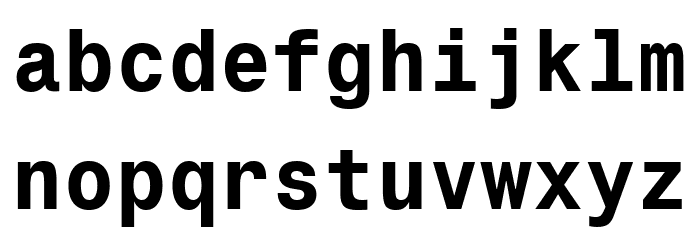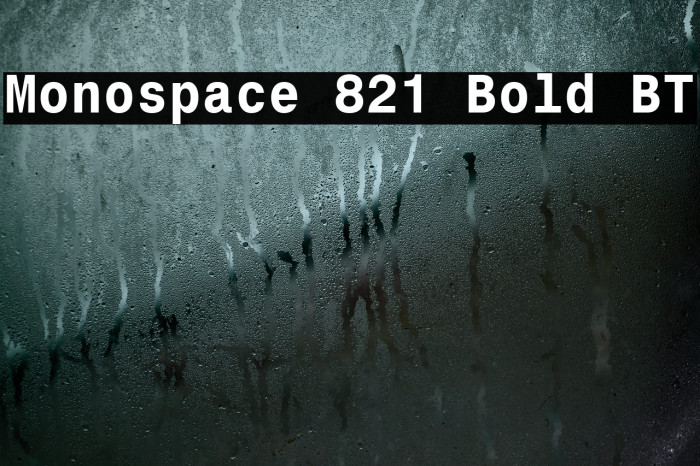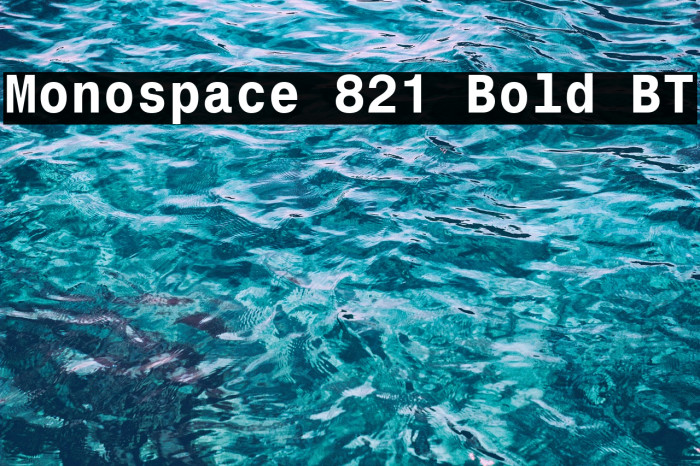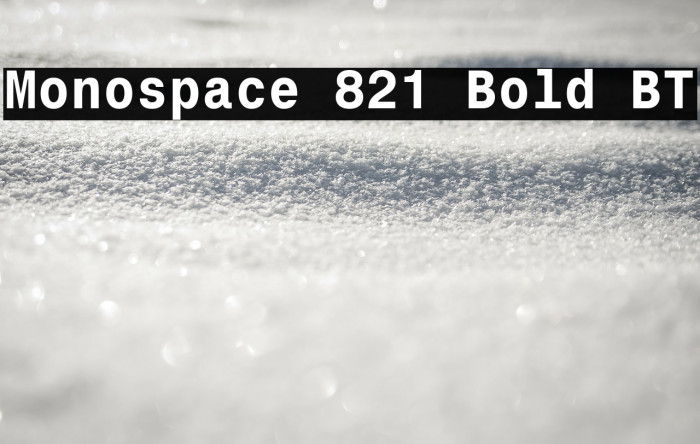
Monospace 821 Bold BT Font
This font is a bold, monospaced typeface characterized by its uniform character width, making it ideal for coding and tabular data. The letters are clear and distinct, with a strong presence due to their bold weight. The uppercase and lowercase letters maintain a consistent height, providing a balanced and structured appearance. Numbers and special characters are equally bold and well-defined, ensuring readability across various applications. The font's simplicity and clarity make it suitable for technical documents and environments where precision is key.
A bold, monospaced typeface with uniform character width, ideal for coding.
- Proposed Projects: Suitable for coding environments, technical documentation, data tables, and any project requiring precise alignment.
- Use Case: Coding, Technical documents, Data tables